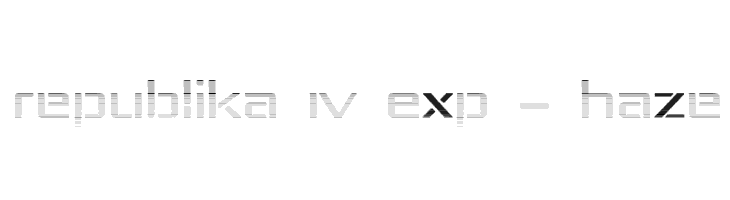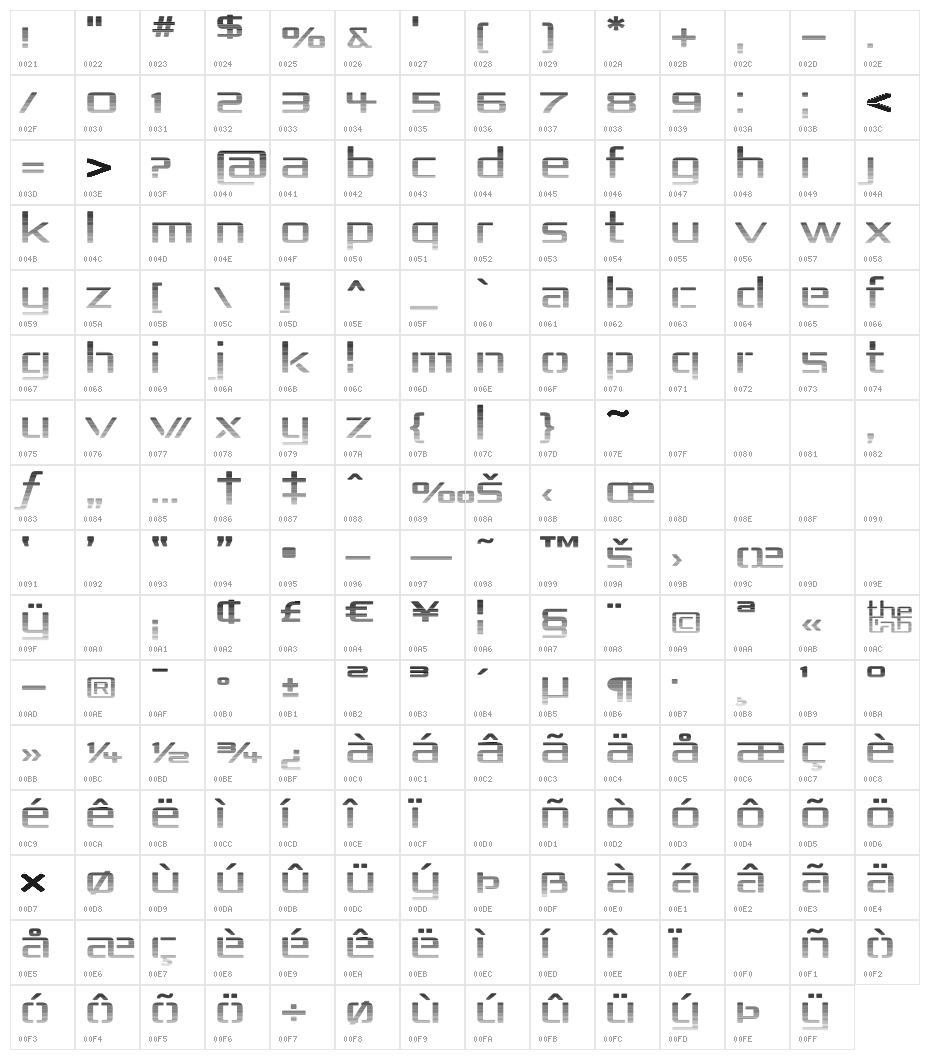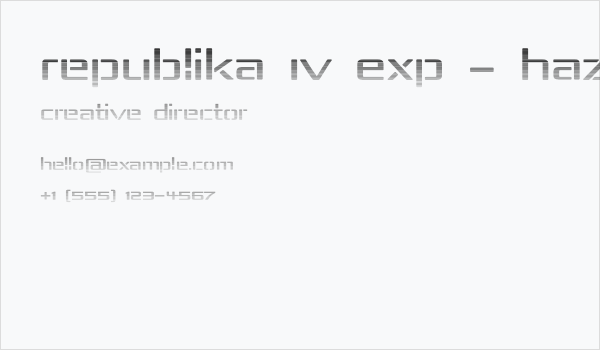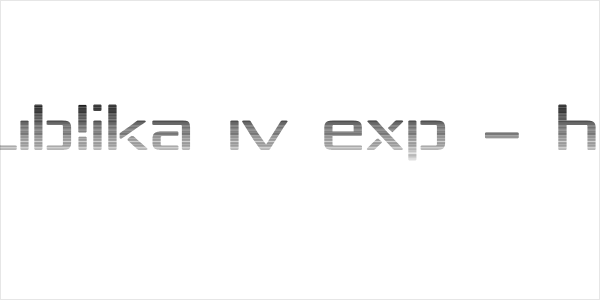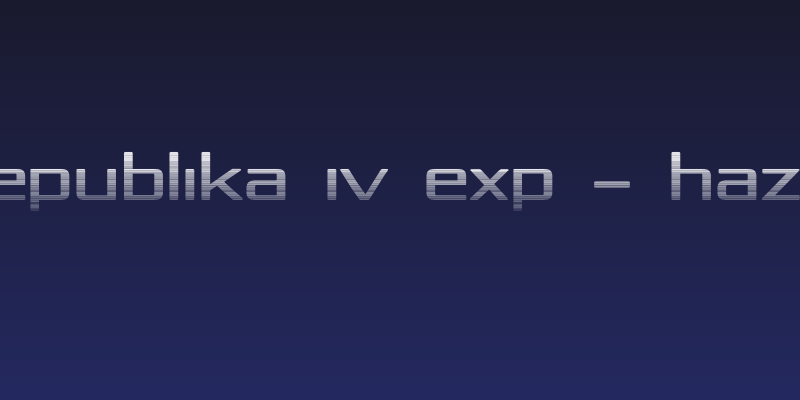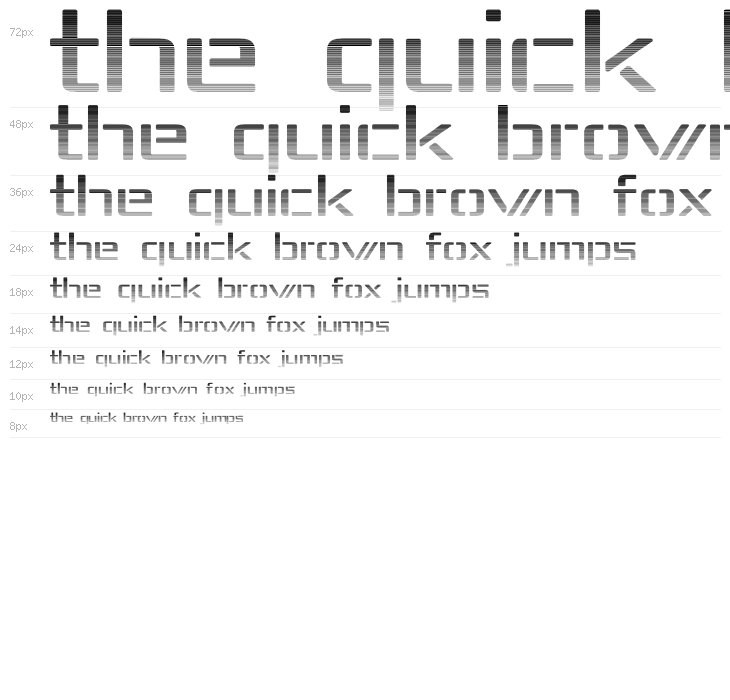
Republika IV Exp - Haze Font
Republika IV Exp - Haze Description
This font features a futuristic and digital aesthetic with a unique striped pattern running horizontally across each character. The design is geometric and structured, giving it a modern and technological feel. The uppercase and lowercase letters maintain a consistent style, with sharp angles and clean lines. The numerals and special characters follow the same design principles, ensuring a cohesive look across all elements. This font is ideal for projects that require a contemporary and innovative touch.
| Proposed Projects | Ideal for tech branding, digital interfaces, video game titles, and sci-fi themed projects. |